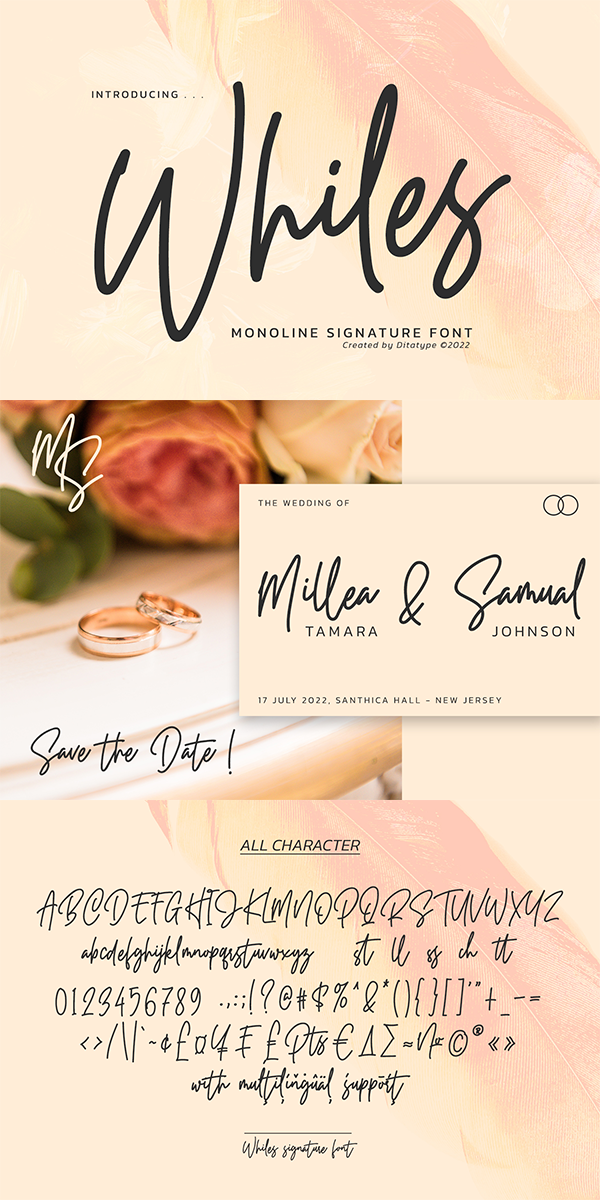
Whiles Font
About Whiles
Whiles is a elegant monoline script font. It comes to be a single font. Thanks to the cursive and unique swirls of the characters carries a sense of elegant looks. On the other hand, the weight of the font is suitable to any sizes you apply it.
It can be used for many design projects, such as poster, logo, book cover, branding, heading, printed product, merchandise, quotes, social media campaign, etc.